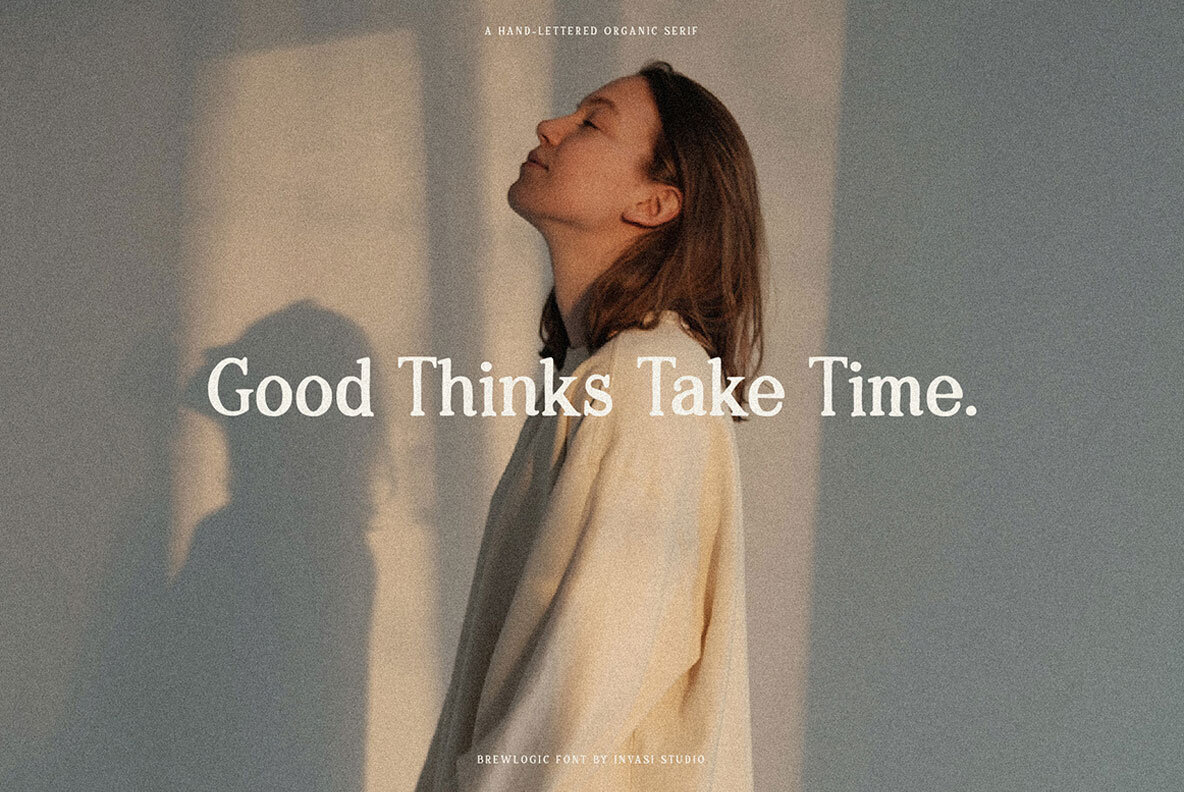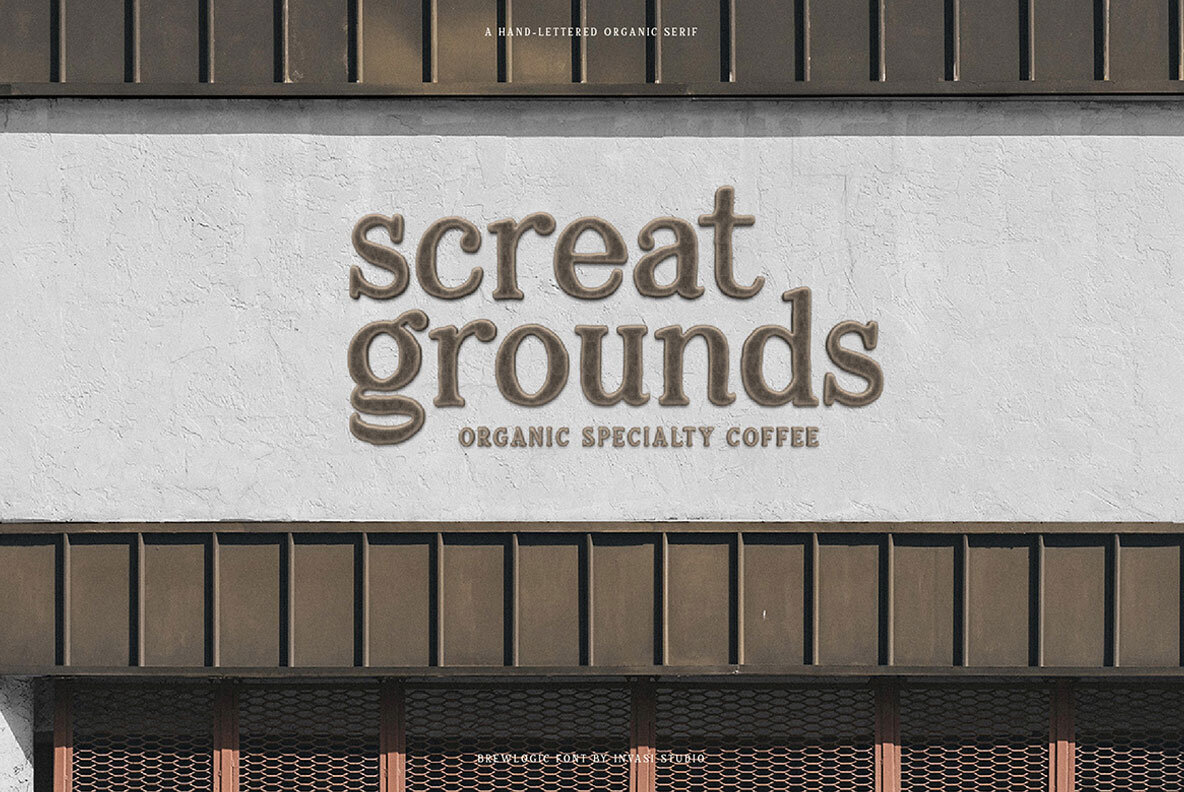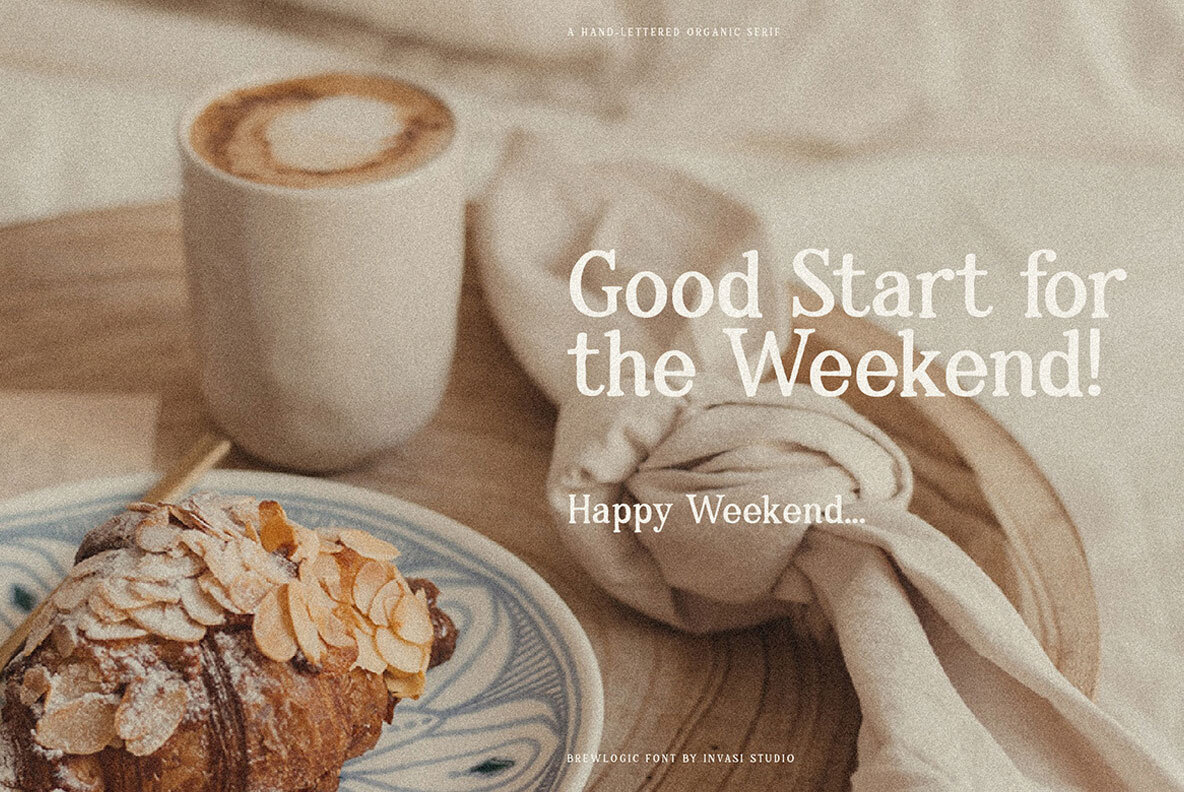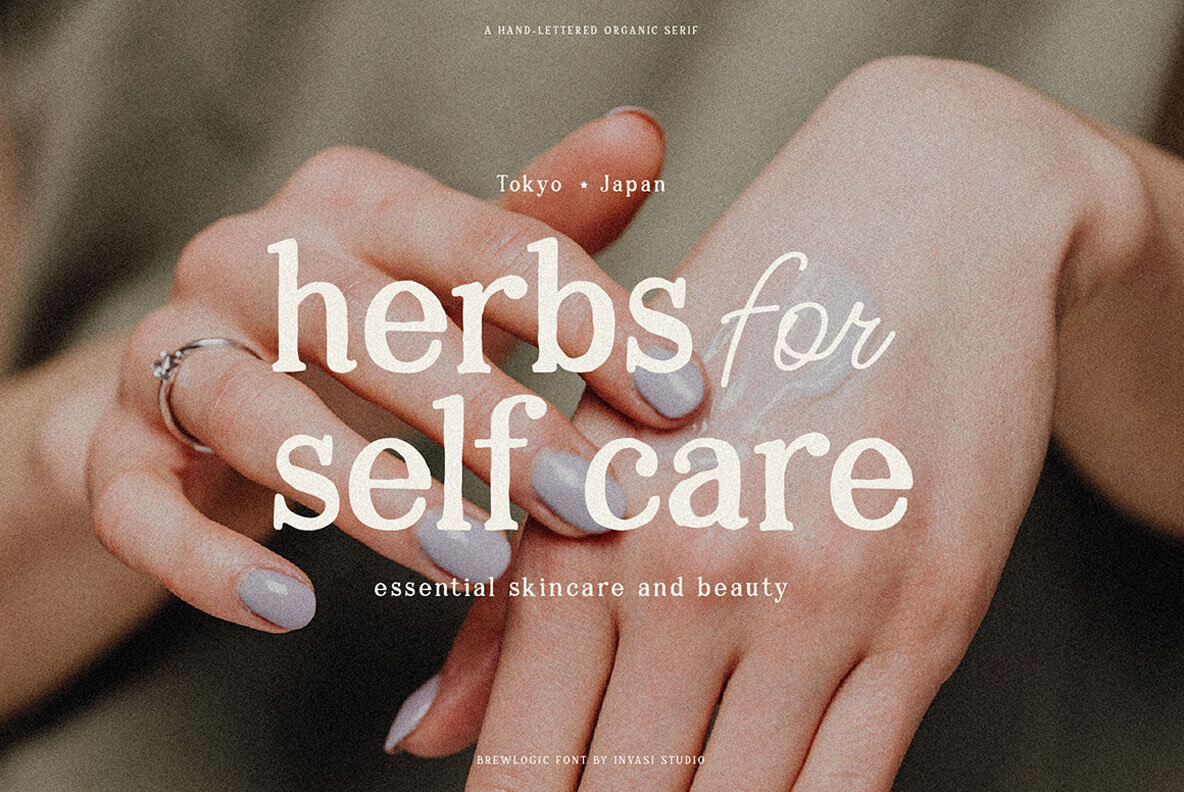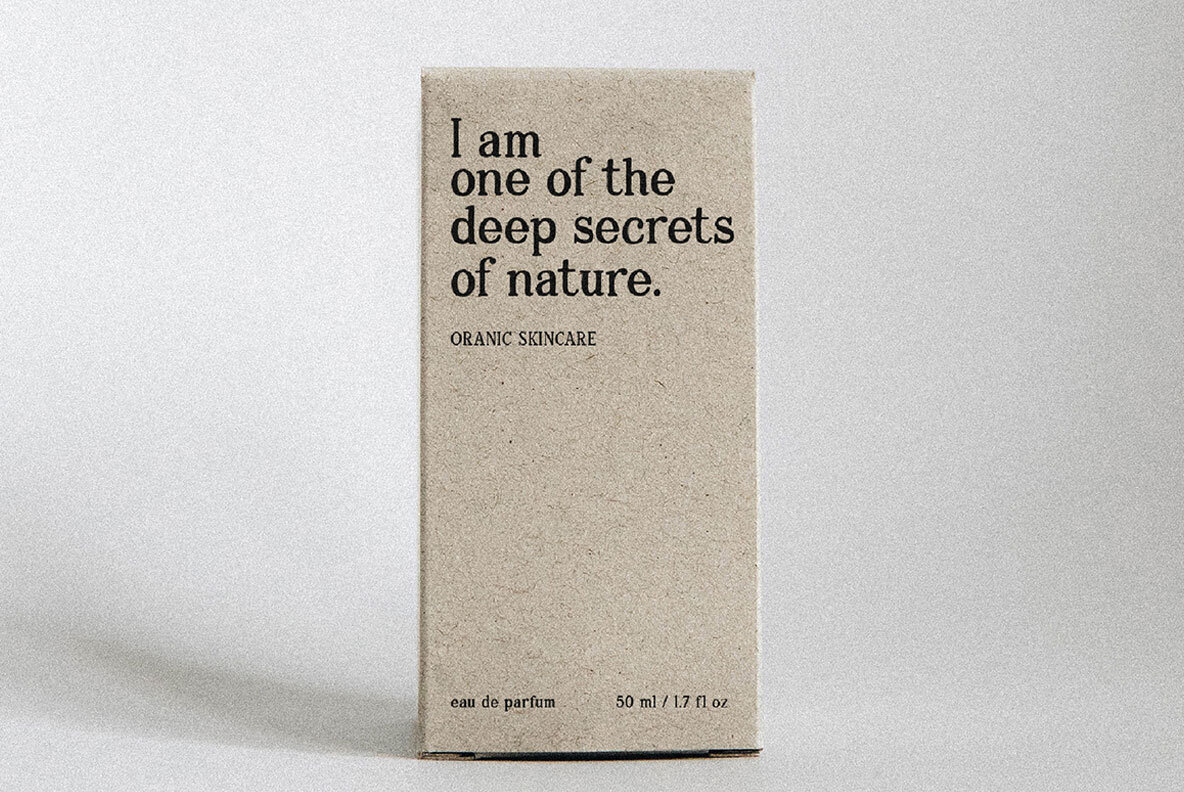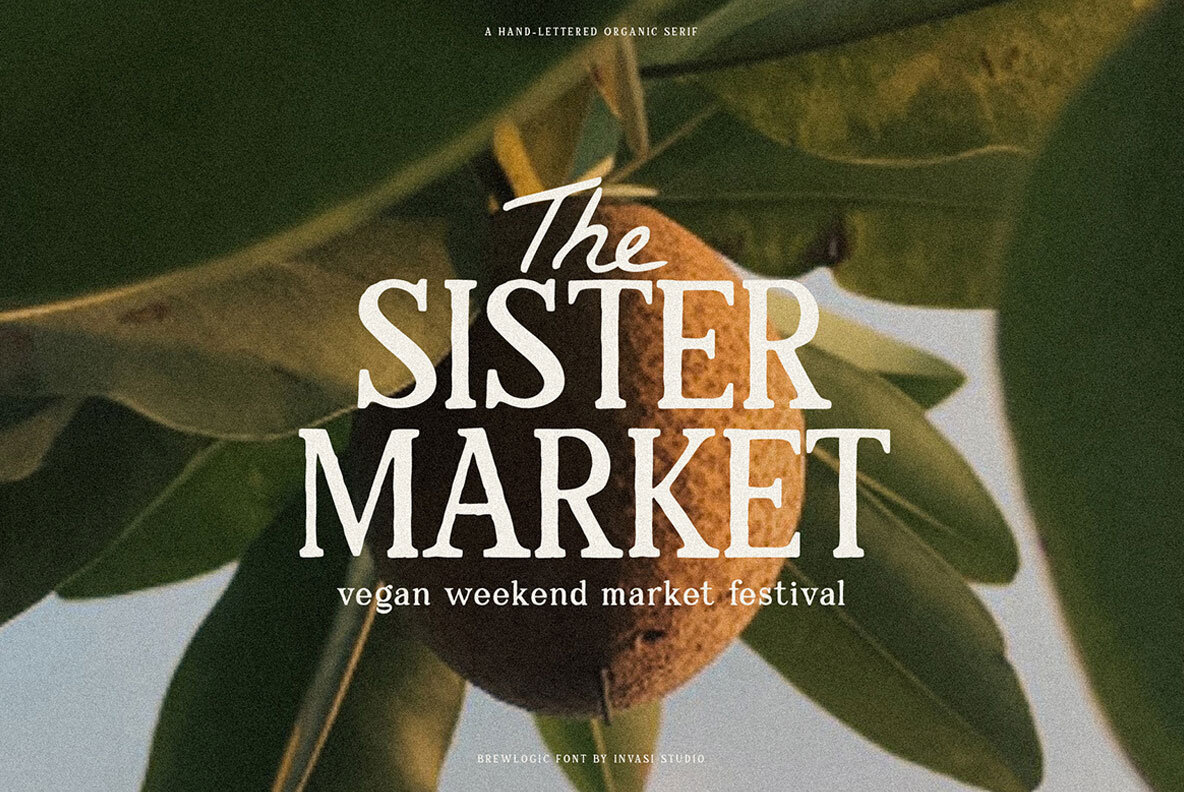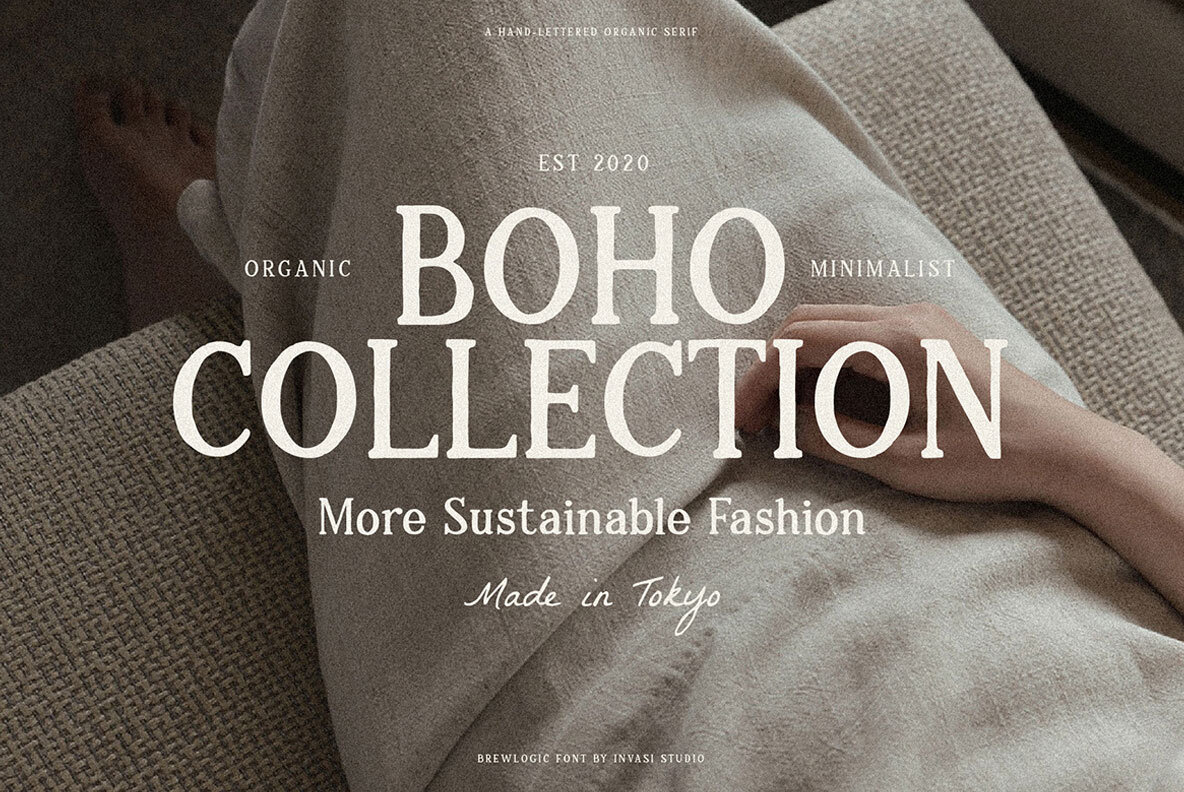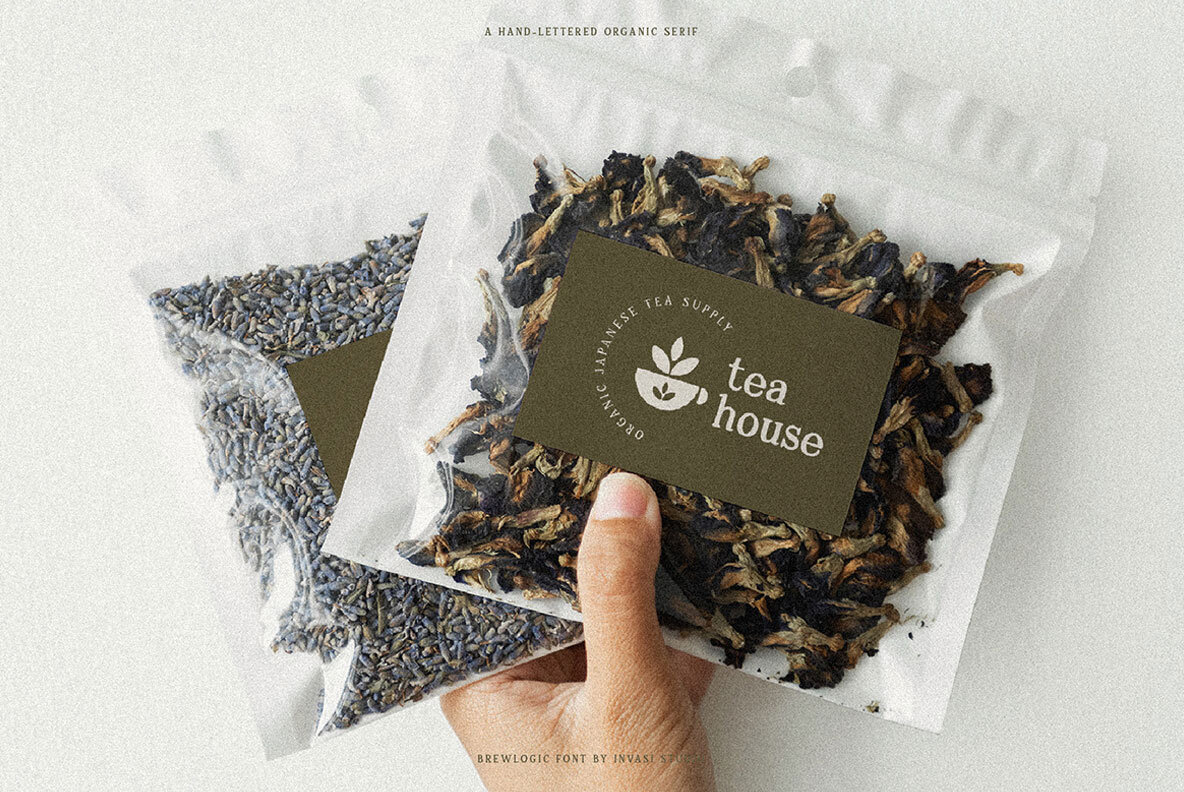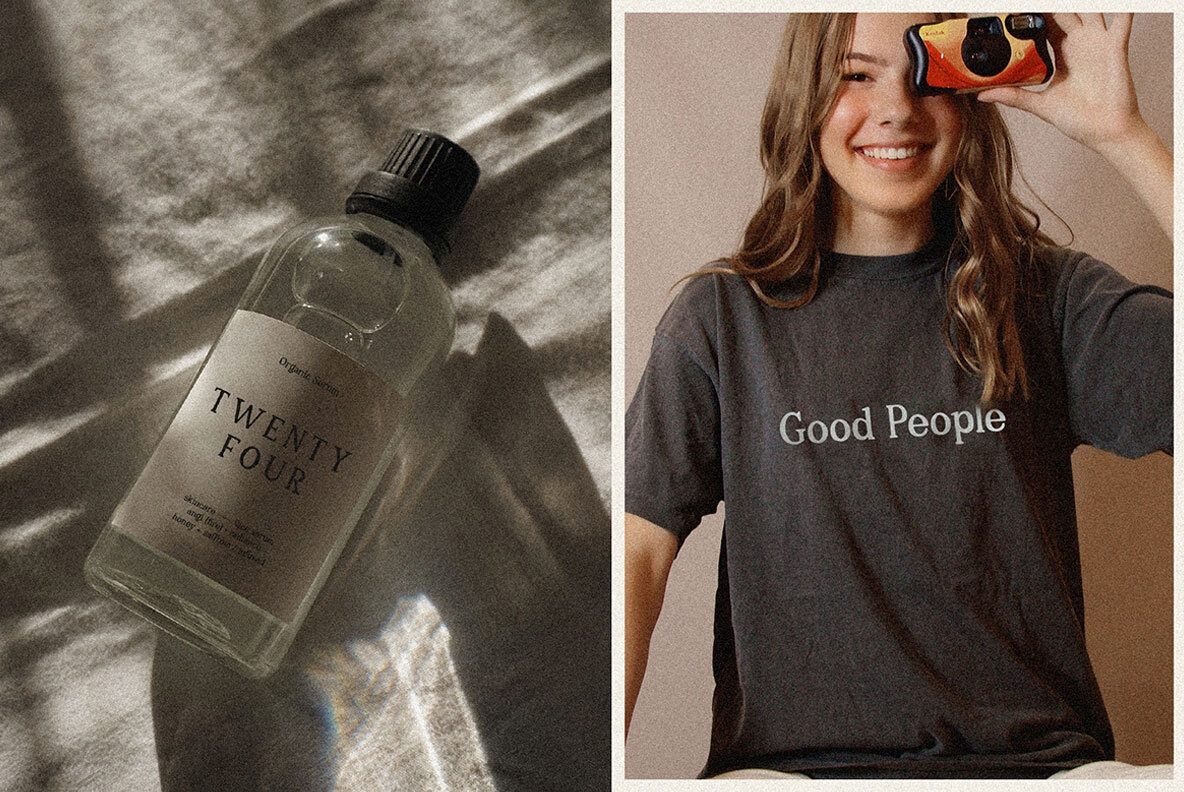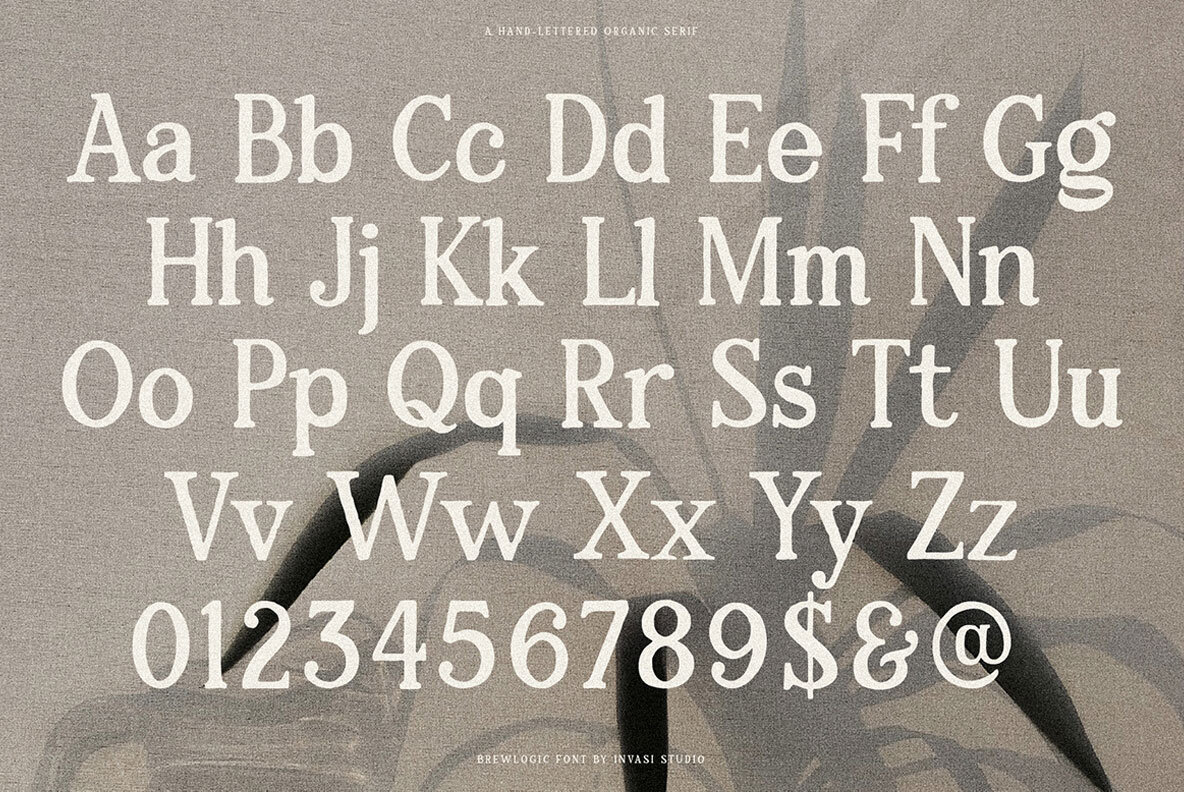
Brewlogic Font
Brewlogic Regular
Brewlogic offers a distinctive blend of handcrafted elegance, perfect for infusing your projects with an organic touch. This hand-lettered serif font captures the essence of artisanal design, making it ideal for creating a fresh visual identity.Brewlogic: A Hand-Lettered Serif for Organic Designs
Embrace Brewlogic and let your designs reflect true artisanal charm with every character.